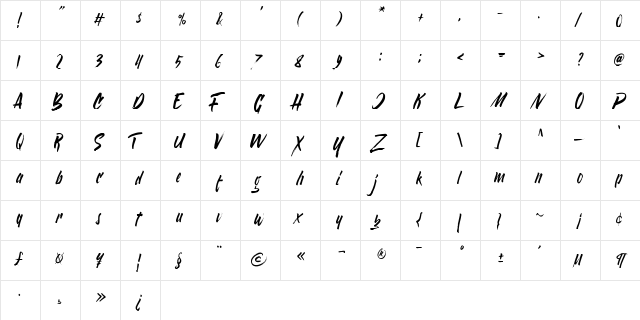
Varokah Regular
| Foundry | semuthitam creative |
| Designer | semuthitam creative |
Design Context for Varokah Typeface
Varokah is a composed and adaptable typeface that performs quietly and consistently across a wide range of design contexts.